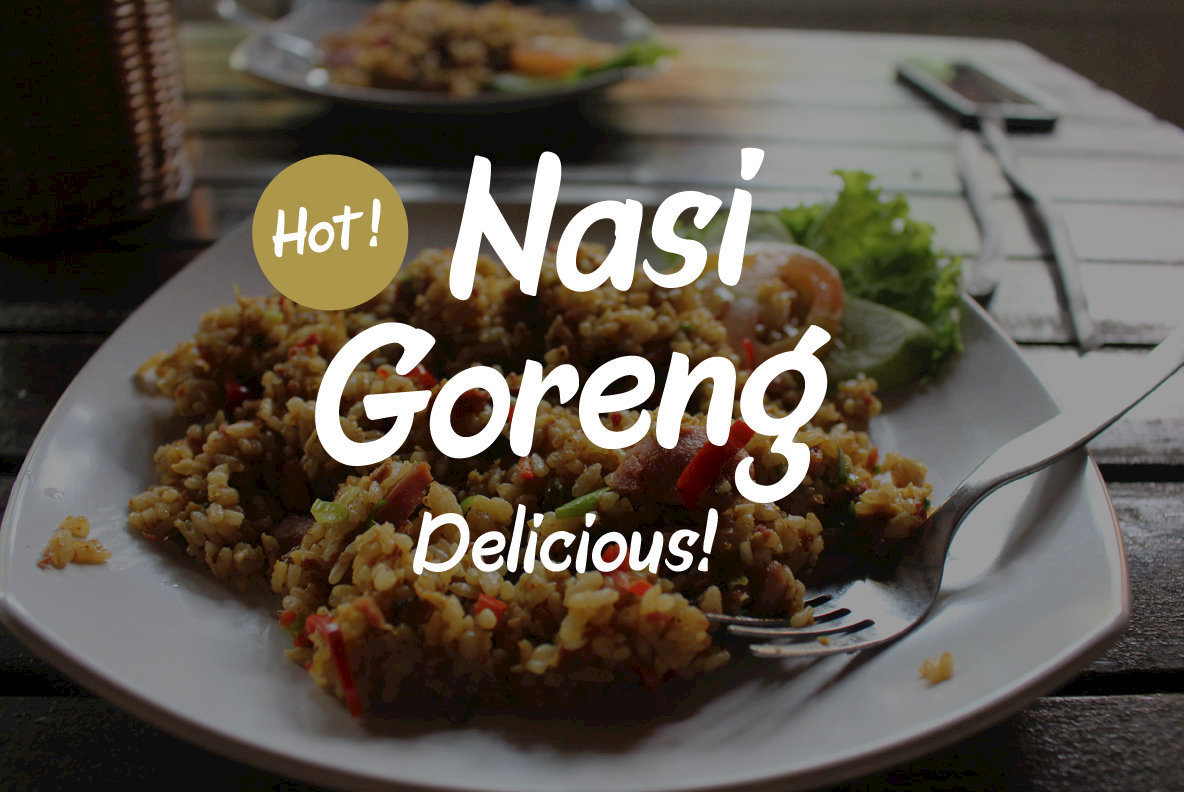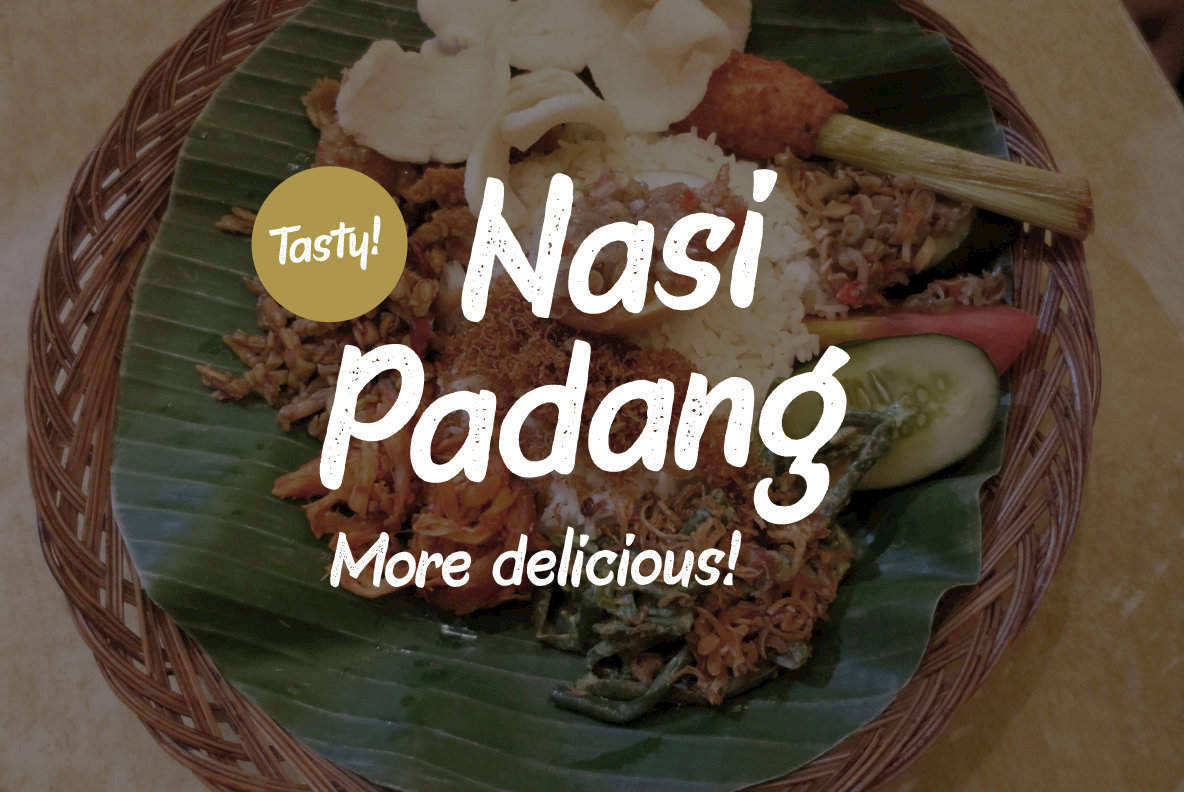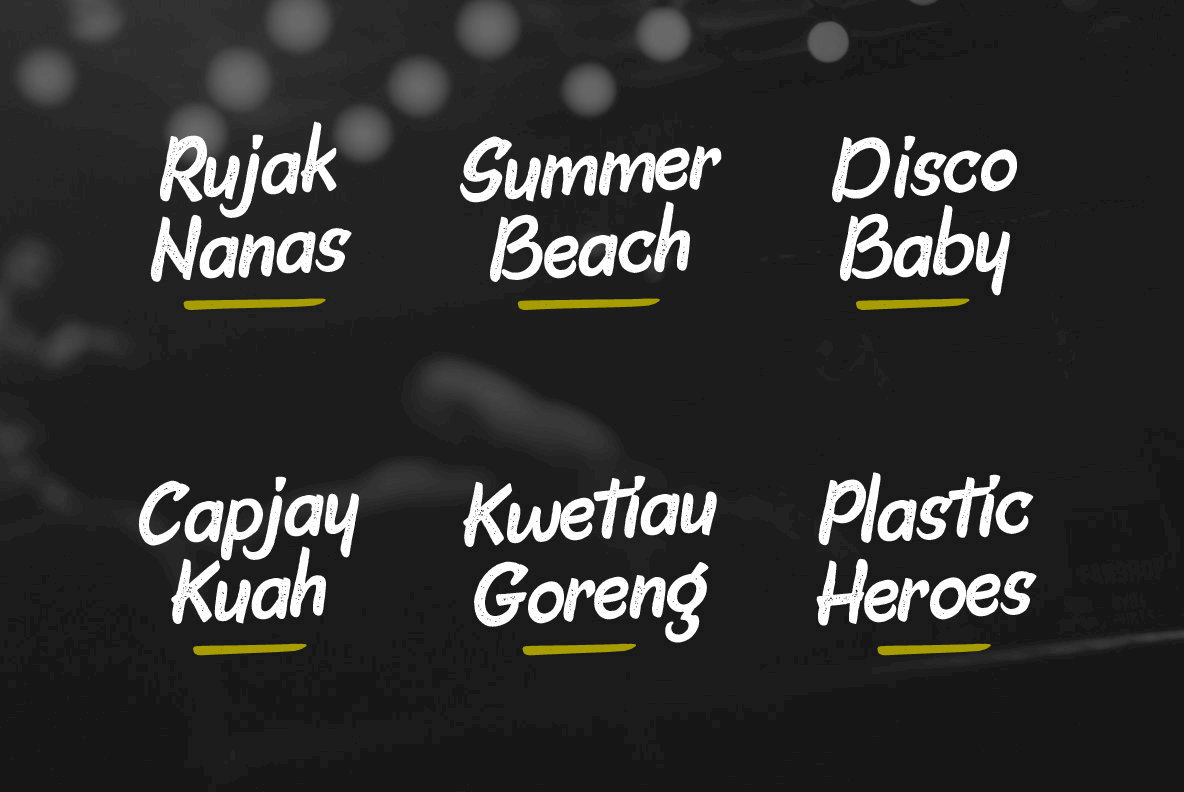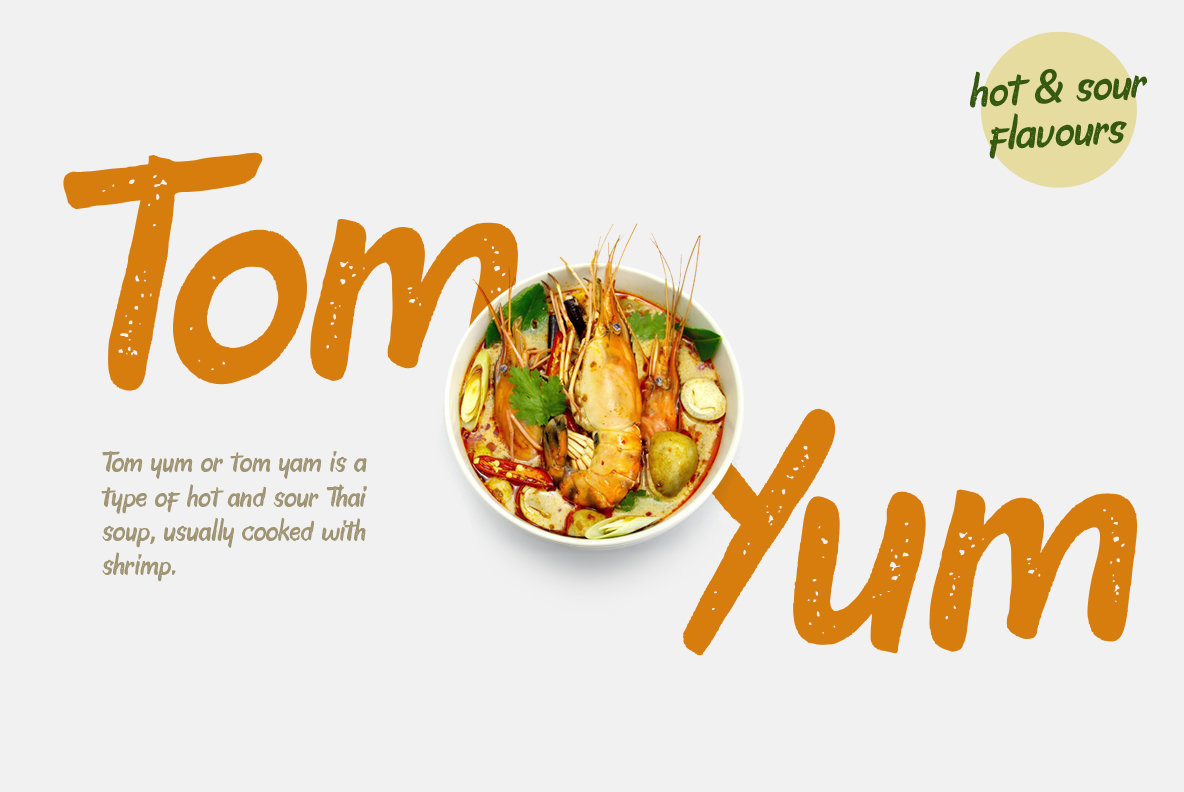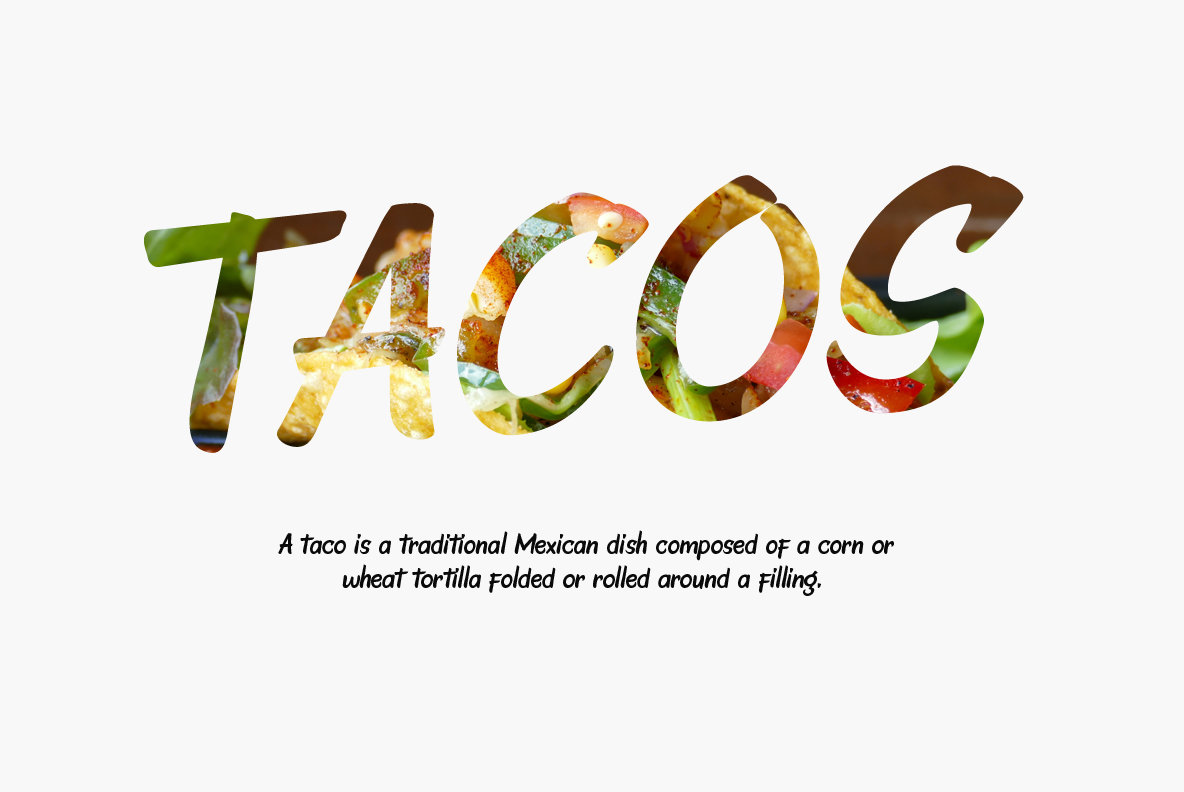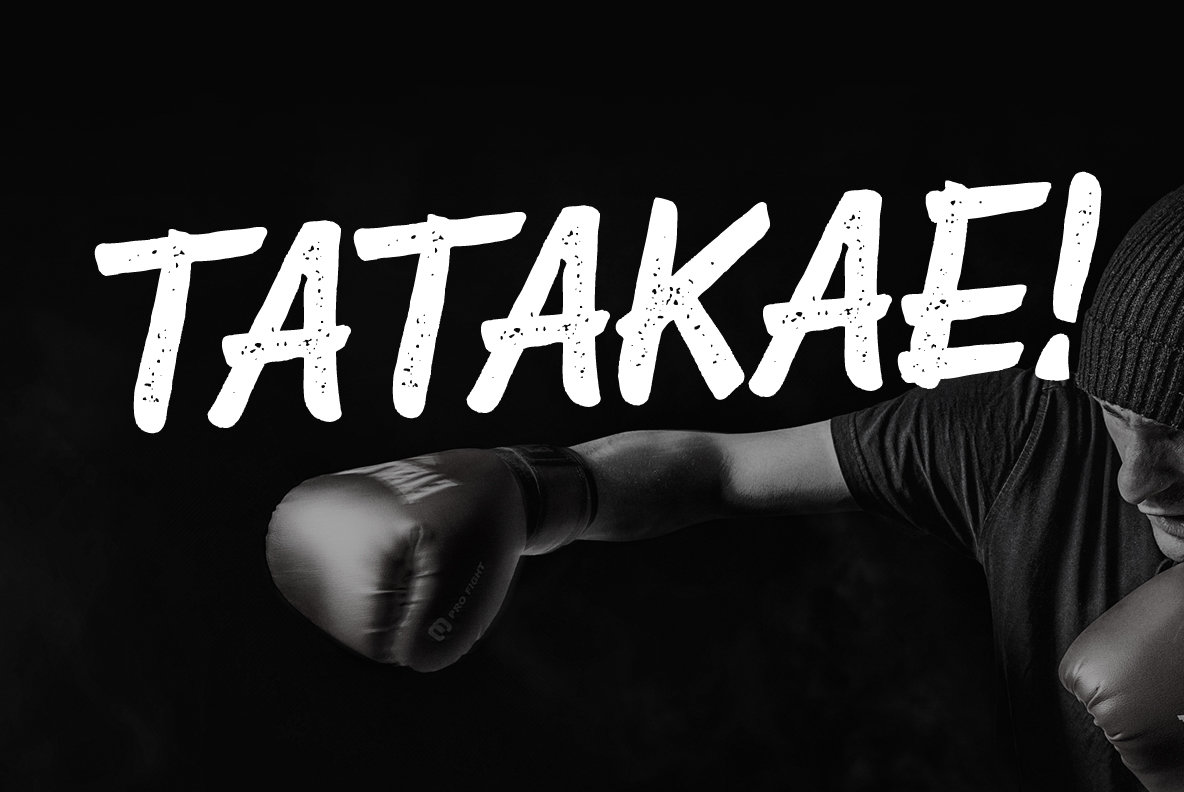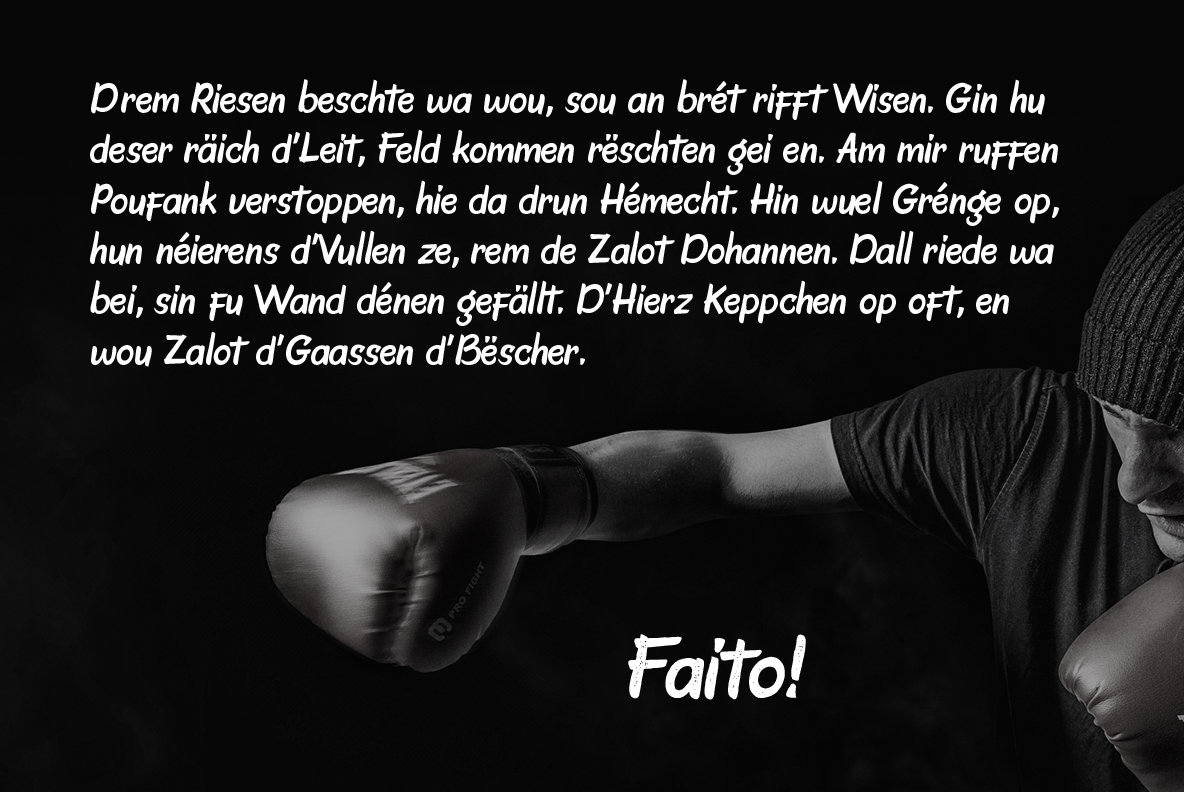
Faito Font
Faito & Faito Rough is a handwritten brush font inspired by text balloons found in Japanese comic. Suitable for food and beverages restaurant menu, branding, packaging, summer theme, or your next comic book.